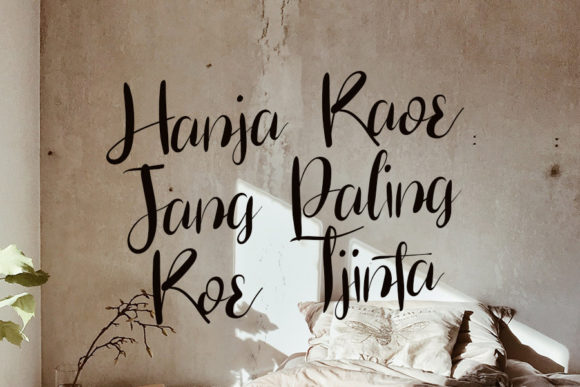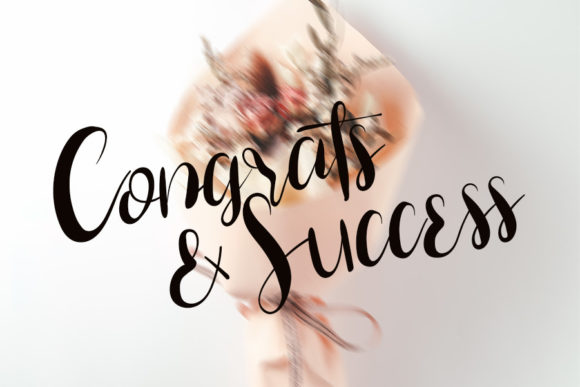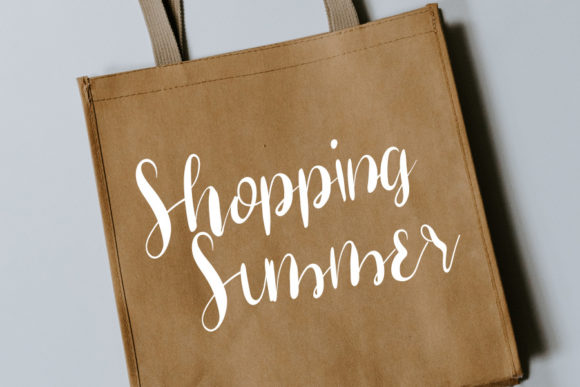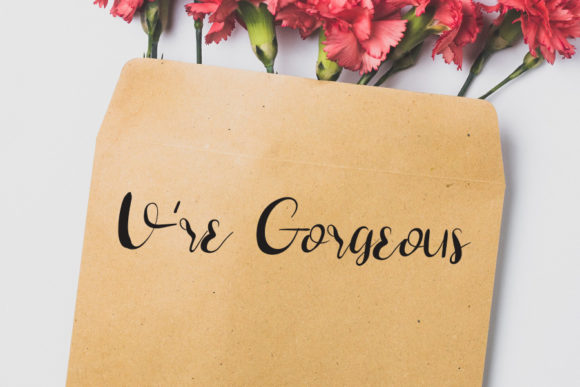
Dalgona Font: Elevate Your Designs with a Stylish and Delicate Script Font
Are you tired of using the same old fonts in your designs? Look no further than the Dalgona Font, a stylish and delicate script font that’s sure to add a touch of elegance to any project. With its clean, thin, and smooth vibe, Dalgona is the perfect choice for designers and crafters looking to elevate their designs and make them stand out from the crowd.
What is Dalgona Font?
Dalgona Font is a beautiful script font that’s inspired by the elegant and refined typography of the past. Its delicate lines and curves give it a sophisticated and luxurious feel, making it perfect for use in a variety of design projects, from wedding invitations and branding materials to packaging and advertising.
Key Features of Dalgona Font
• Clean and Thin Lines: Dalgona Font features clean and thin lines that give it a smooth and elegant appearance.
• Delicate Curves: The font’s delicate curves and swashes add a touch of sophistication and luxury to any design.
• Script Style: Dalgona Font is a script font that’s perfect for adding a personal and elegant touch to your designs.
• Versatile: The font is versatile and can be used in a variety of design projects, from print to digital.
Why Use Dalgona Font?
There are many reasons why designers and crafters love Dalgona Font. Here are just a few:
• Adds Elegance: Dalgona Font adds a touch of elegance and sophistication to any design.
• Stand Out: The font’s unique and stylish design helps your projects stand out from the crowd.
• Easy to Read: Despite its delicate lines, Dalgona Font is easy to read and can be used in a variety of design projects.
• Customizable: The font can be customized to fit your design needs, making it perfect for use in a variety of projects.
How to Use Dalgona Font
Using Dalgona Font is easy. Here are a few tips to get you started:
• Pair with Bold Fonts: Pair Dalgona Font with bold fonts for a striking contrast.
• Use for Headings: Use Dalgona Font for headings and titles to add a touch of elegance.
• Add Swashes: Add swashes and flourishes to give your text a more luxurious feel.
• Experiment with Colors: Experiment with different colors and textures to add depth and interest to your designs.
Design Ideas Using Dalgona Font
Dalgona Font is a versatile font that can be used in a variety of design projects. Here are a few ideas to get you started:
• Wedding Invitations: Use Dalgona Font to create beautiful and elegant wedding invitations.
• Branding Materials: Use the font to create luxurious branding materials, such as business cards and letterheads.
• Packaging: Use Dalgona Font to add a touch of elegance to packaging designs.
• Advertising: Use the font to create eye-catching and sophisticated advertising materials.
Dalgona Font is a stylish and delicate script font that’s perfect for designers and crafters looking to elevate their designs. With its clean, thin, and smooth vibe, Dalgona is sure to add a touch of elegance and sophistication to any project. Whether you’re creating wedding invitations, branding materials, or packaging designs, Dalgona Font is a versatile and beautiful choice.